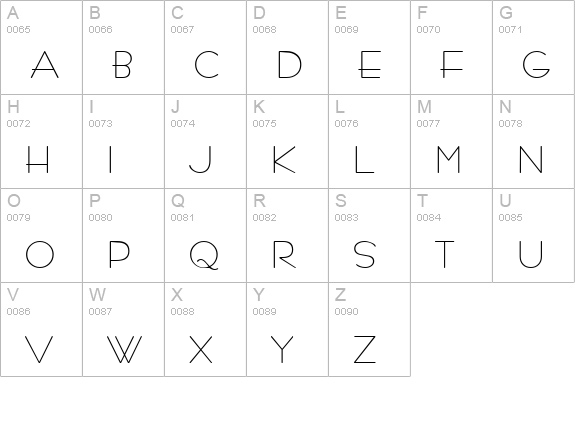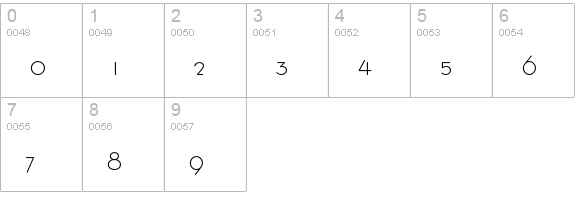
Racetrac Normal is the standard, neutral variant in the Racetrac typeface family \xE2\x80\x94 well suited to general body text, paragraphs, and standard typographic work.
Racetrac Normal font is a sleek and modern typeface that exudes confidence and professionalism. With its clean lines and balanced letterforms, this font is perfect for a wide range of design projects, from branding and logos to headings and body text. The Racetrac Normal font is incredibly versatile, making it suitable for both print and digital designs. Its legibility and readability ensure that your message is conveyed with clarity and impact, no matter the medium. What sets Racetrac Normal font apart is its accessibility. This font is freely available to download at FontsMarket.com, allowing designers and creatives to easily incorporate it into their projects without any restrictions. By offering this font for free, it opens up endless possibilities for designers to explore and create stunning visuals that truly stand out. Whether you're working on a corporate presentation, a website design, or a magazine layout, Racetrac Normal font is a reliable choice that will elevate your work to the next level. Its timeless aesthetic and versatility make it a valuable addition to any designer's toolkit. So go ahead and download Racetrac Normal font from FontsMarket.com today and unlock its full potential. With its professional and stylish look, this font is sure to make a lasting impression on your audience.